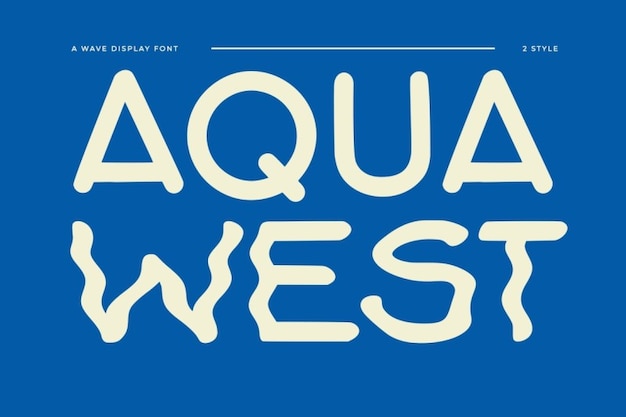
Aqua West
Aqua West Font
Aqua West is the font that's as refreshing as a cool drink of water on a hot day. It's simple, modern, and as clear as a pristine lake. Each letter flows with the smoothness of a calm river, making it perfect for projects that need a touch of contemporary simplicity with a watery twist. Whether you're crafting clean branding, sleek signage, or any design that craves a refreshing, modern vibe, Aqua West has got you covered. It's like the font that turns your text into a tranquil oasis, making it feel as if it were dipped in the clearest waters. Simple and modern, it's the ideal choice to add a splash of freshness to your designs.